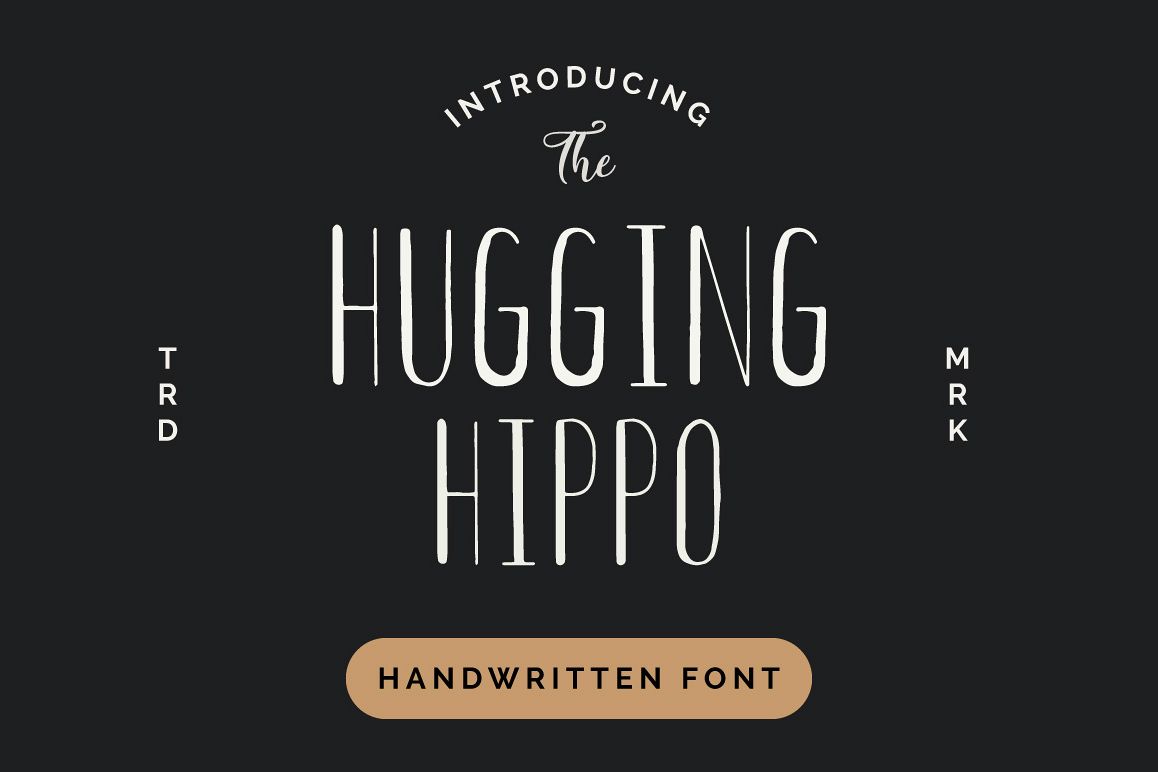
HUGGING HIPPO
• HUGGING HIPPO : Fineliner, all-caps font with wide spacing. All-caps multilingual support including punctuation
HUGGING HIPPO
By Digital Hustler